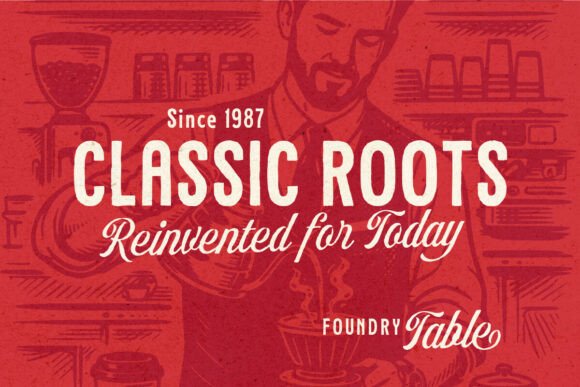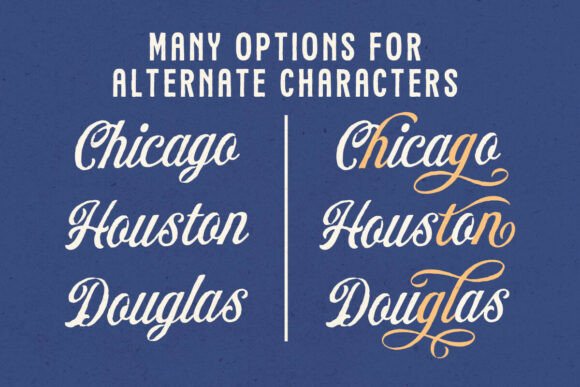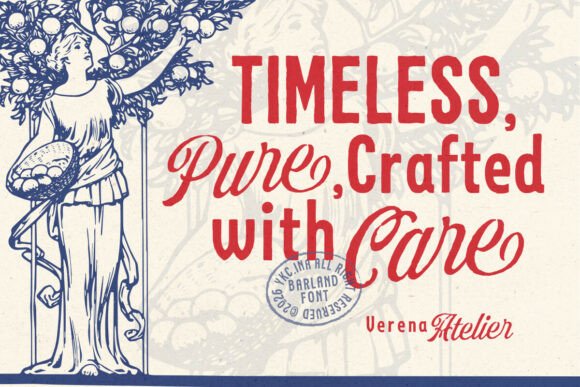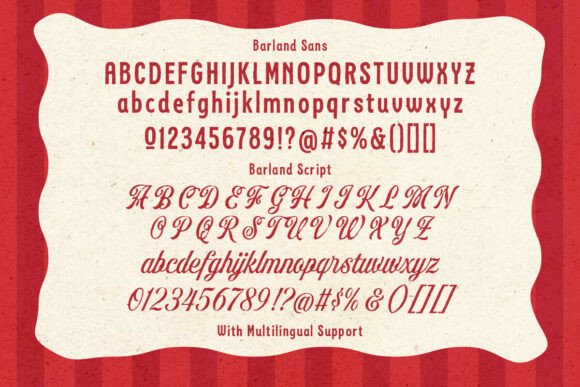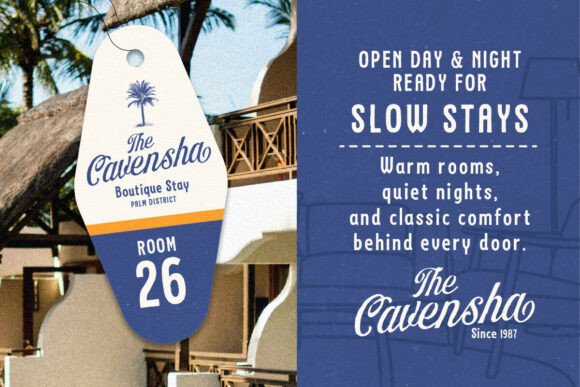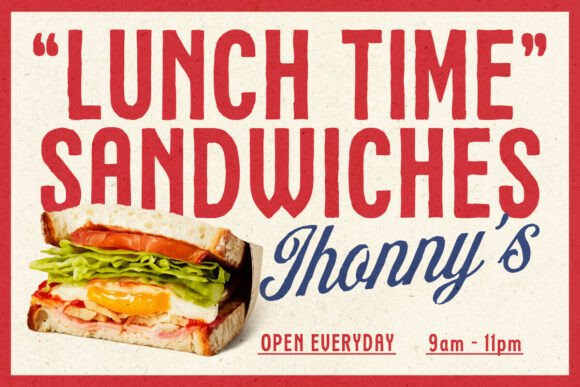
Introducing Barland Font: A Timeless Handmade Touch with a Friendly Retro Character
In the world of typography, fonts play a crucial role in conveying the tone and personality of a brand. For designers and crafters looking for a unique and eye-catching font, Barland Font is an excellent choice. This handcrafted script and sans pairing is inspired by classic sign painting and vintage print textures, making it perfect for projects that require a timeless handmade touch with a friendly retro character.
The Inspiration Behind Barland Font
Barland Font draws inspiration from the art of classic sign painting and vintage print textures. The script features flowing strokes, soft curves, and subtle rough details that evoke a sense of nostalgia and warmth. The clean sans, on the other hand, provides a perfect balance to the composition with its structure and clarity. This combination makes Barland Font an ideal choice for designers and crafters looking to add a touch of personality to their projects.
Key Features of Barland Font
So, what makes Barland Font stand out from other fonts? Here are some of its key features:
- Handcrafted script and sans pairing: Barland Font features a beautiful handcrafted script and sans pairing that is perfect for creating unique and eye-catching designs.
- Flowing strokes and soft curves: The script font features flowing strokes and soft curves that give it a friendly and approachable feel.
- Subtle rough details: The subtle rough details in the script font add a touch of texture and authenticity to the design.
- Clean sans: The clean sans font provides a perfect balance to the composition with its structure and clarity.
Use Cases for Barland Font
Barland Font is a versatile font that can be used in a variety of design projects. Here are some use cases where Barland Font shines:
- Logos: Barland Font is perfect for creating unique and eye-catching logos that require a handmade touch.
- Packaging text: The font’s clean sans and script pairing make it ideal for packaging text that requires clarity and personality.
- Posters: Barland Font is a great choice for posters that require a bold and eye-catching headline.
- Labels: The font’s clean sans and script pairing make it perfect for creating labels that require a touch of personality.
- Social media graphics: Barland Font is a great choice for social media graphics that require a friendly and approachable tone.
- Branding projects: The font’s timeless handmade touch makes it perfect for branding projects that require a unique and eye-catching design.
Why Choose Barland Font?
So, why should designers and crafters choose Barland Font for their projects? Here are some reasons:
- Unique and eye-catching design: Barland Font features a unique and eye-catching design that is sure to grab attention.
- Timeless handmade touch: The font’s handmade touch gives it a timeless quality that is perfect for projects that require a classic look.
- Versatile: Barland Font is a versatile font that can be used in a variety of design projects.
- Easy to read: The font’s clean sans and script pairing make it easy to read, even at small sizes.
In conclusion, Barland Font is an excellent choice for designers and crafters looking for a unique and eye-catching font. Its handcrafted script and sans pairing, inspired by classic sign painting and vintage print textures, make it perfect for projects that require a timeless handmade touch with a friendly retro character. With its versatility, ease of use, and unique design, Barland Font is sure to become a favorite among designers and crafters.